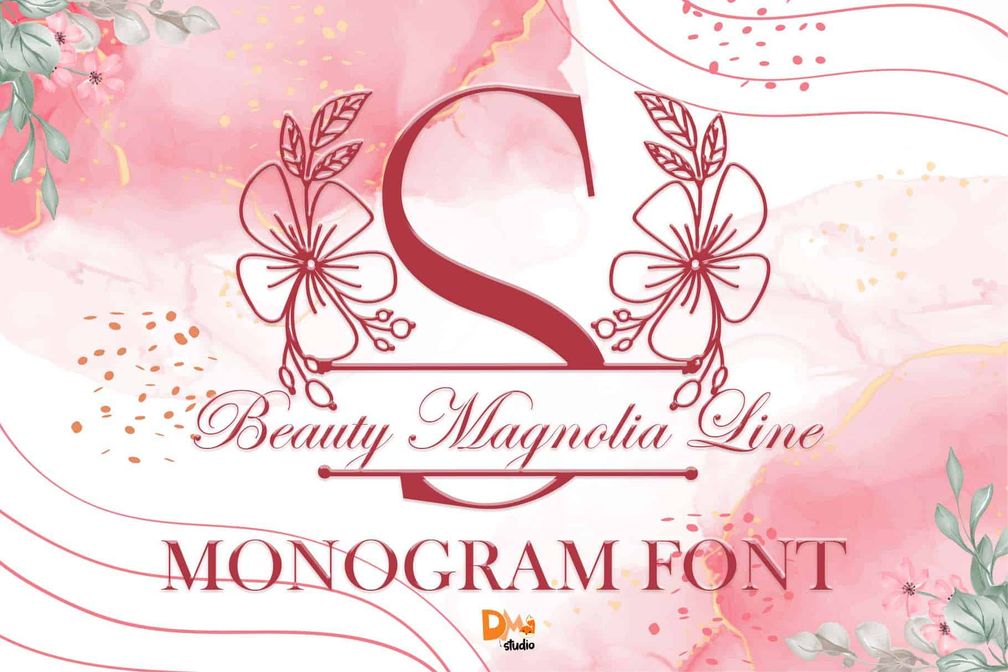
Beauty Magnolia Line Monogram
Beauty Magnolia Line Monogram – Elegant Floral Line Monogram Font
Beauty Magnolia Line Monogram is a refined and delicate monogram font inspired by the elegance of magnolia blossoms. Each letter features graceful line art with hand-drawn floral accents, making it a perfect choice for wedding designs, luxury branding, personalized gifts, and romantic stationery. With its soft curves and sophisticated detail, this font brings a timeless and floral elegance to every creation.
• Graceful Magnolia Line Art – Adorned with hand-drawn magnolia-inspired floral details on every letter.
• Perfect for Romantic & Elegant Projects – Ideal for wedding monograms, invitations, upscale branding, and custom gifts.
• Timeless & Feminine Aesthetic – Blends refined floral beauty with modern simplicity.
• Complete Character Set – Includes uppercase letters, numbers, punctuation, and multilingual support.